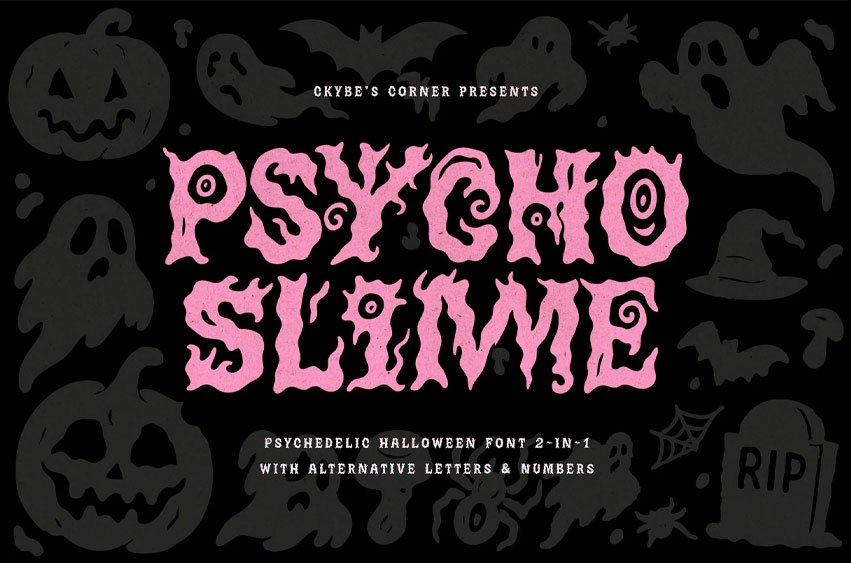
Psycho Slime Font Psychedelic Halloween Font. Get ready to melt your words into madness. Psycho Slime is a hand-crafted display typeface that drips with chaotic energy.
This font was born from a blend of psychedelia, horror pulp, and slime-soaked nightmares. Each letter feels alive — bending, twisting, and mutating with creepy eyeballs, melting edges, and ghostly vibes.
- Full uppercase alphabet A–Z
- Full additional alphabet A–Z (found it in lowercase)
- Numerals 0–9
- Punctuation & special symbols
- Alternative characters for extra variety
Turn any project into a freaky trip through slime, screams, and psychotic fun.
With Psycho Slime, your designs won’t whisper… they’ll SCREAM.